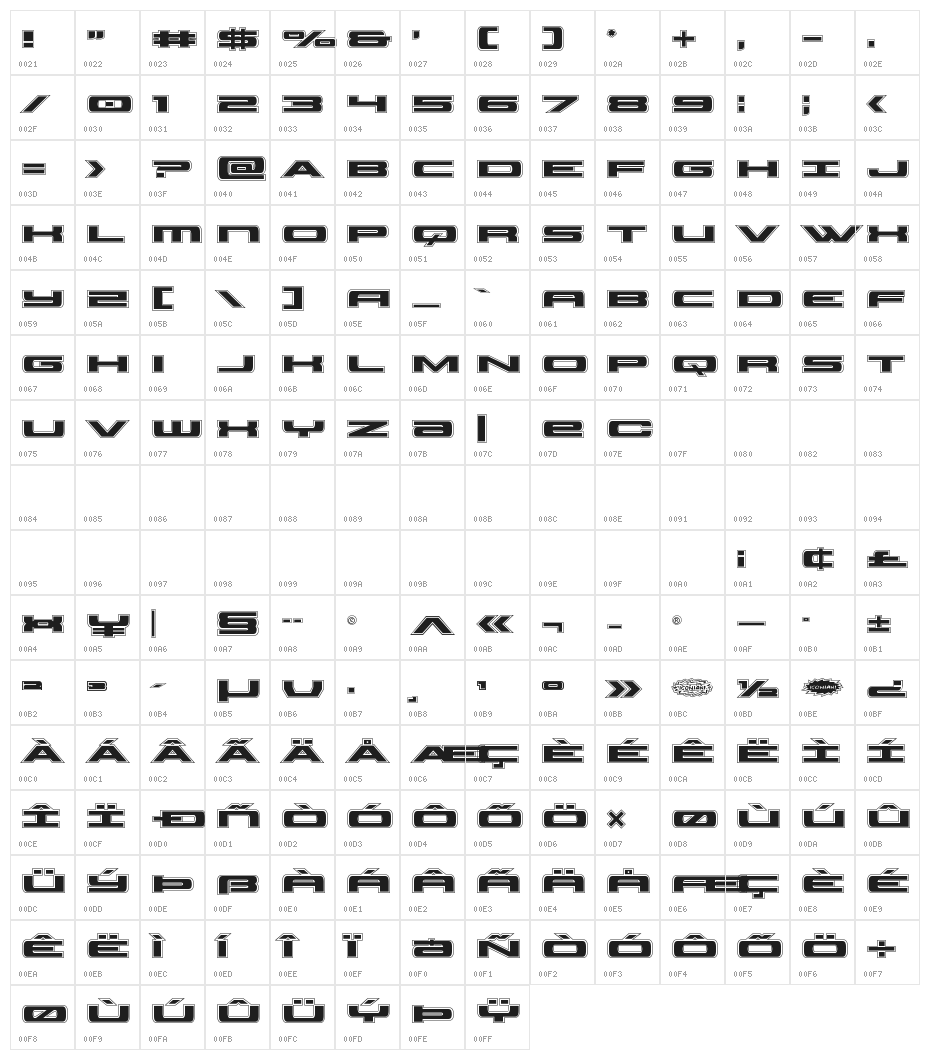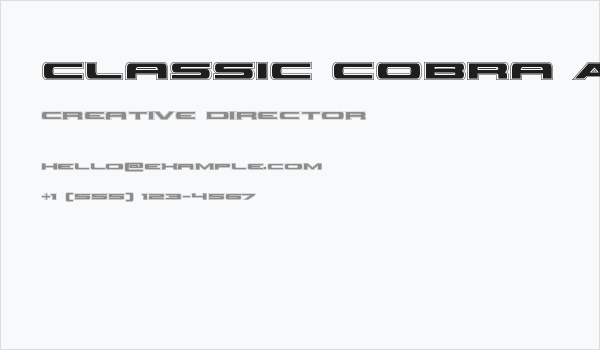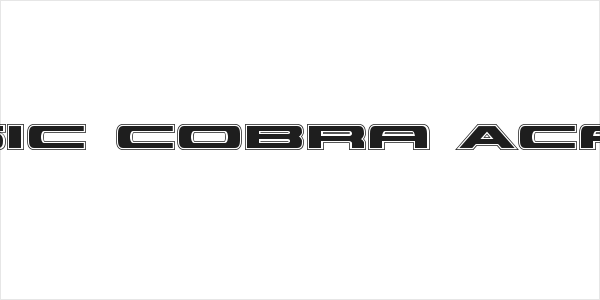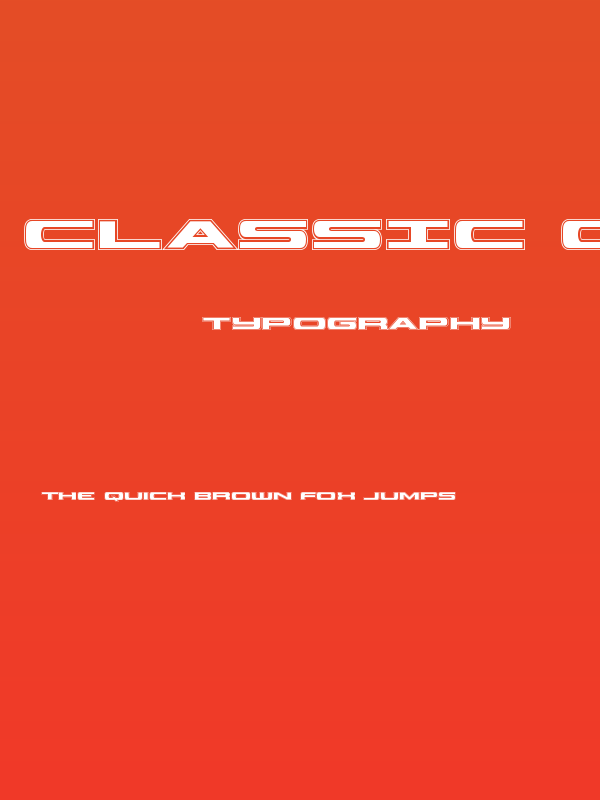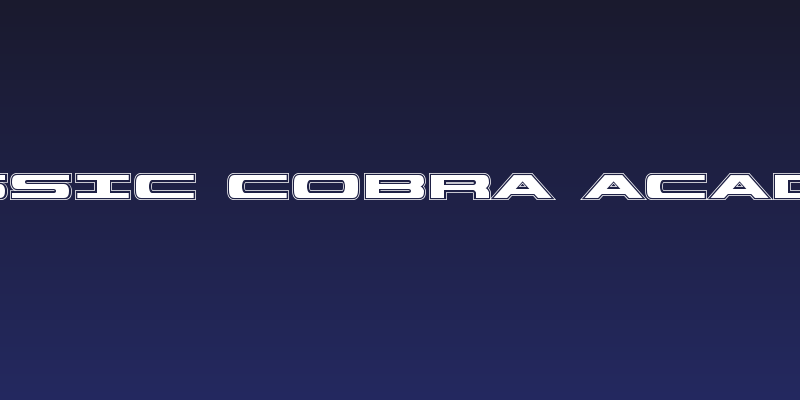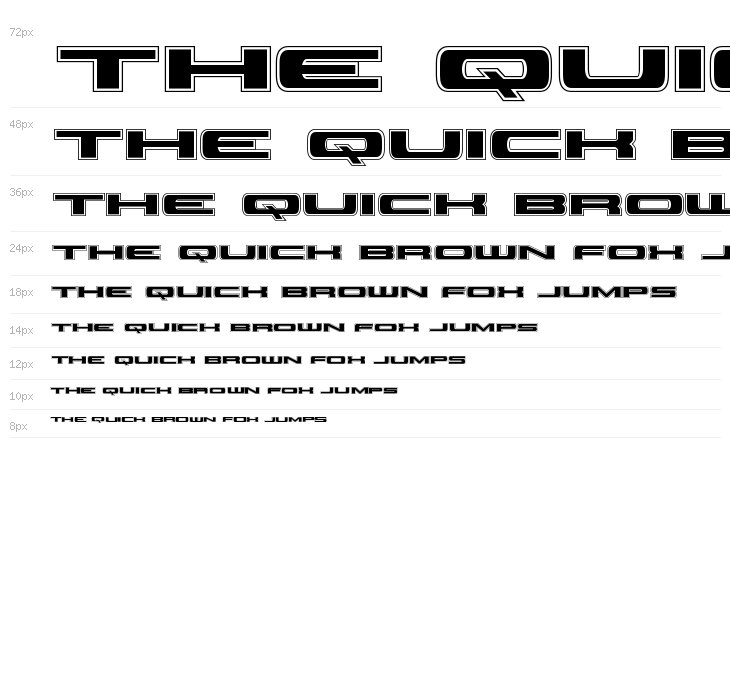
Classic Cobra Academy Font
Classic Cobra Academy Description
This font features a bold and dynamic design with a futuristic and sporty aesthetic. The characters have a strong presence, characterized by thick strokes and sharp angles. Each letter is outlined, adding depth and a three-dimensional effect. The uppercase and lowercase letters maintain a consistent style, with the uppercase being more prominent. The numerals and special characters follow the same design principles, ensuring uniformity across all glyphs. This font's unique style makes it suitable for projects that require a modern and energetic look.
| Proposed Projects | Ideal for sports branding, automotive designs, video game titles, and tech-related projects. |